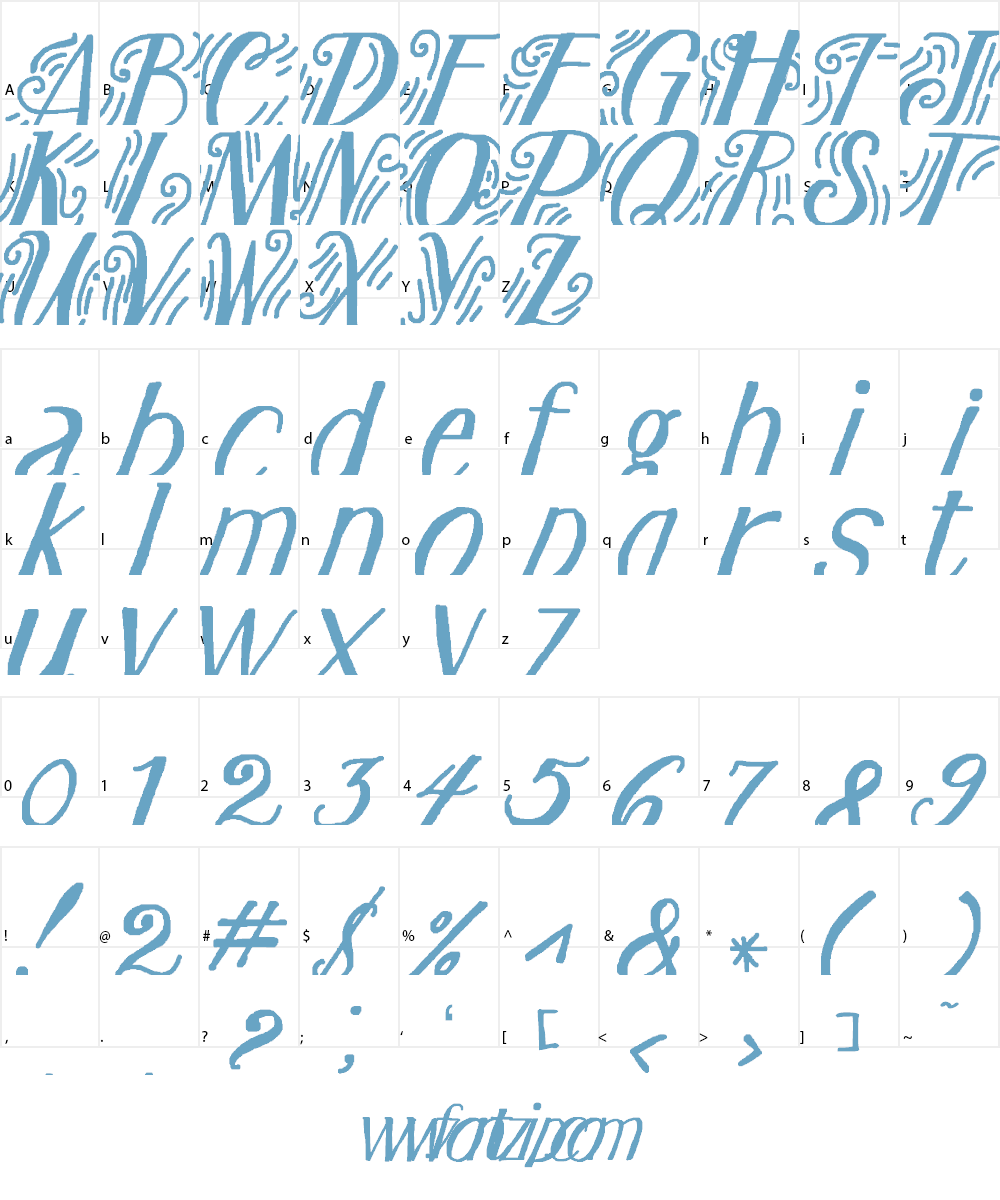
Fun and free to use for personal projects! The fancy part of this font are the caps so enjoy and do visit me at http://calej.blogspot.com for more freebies!